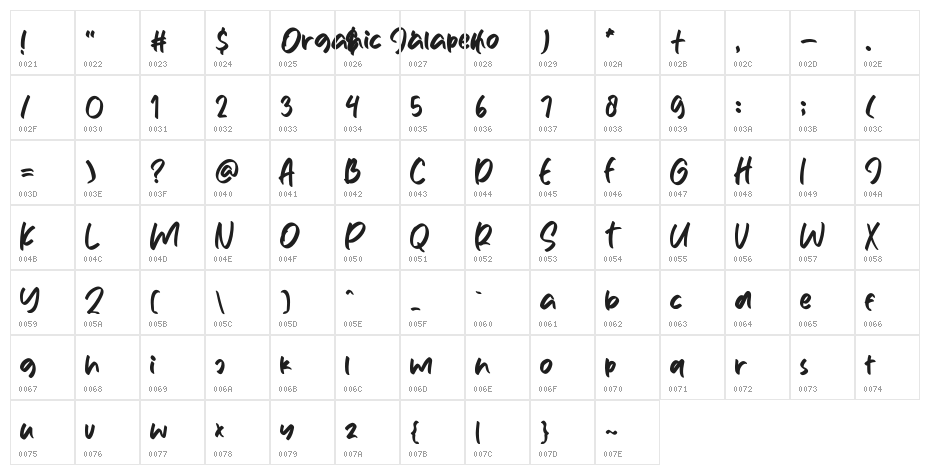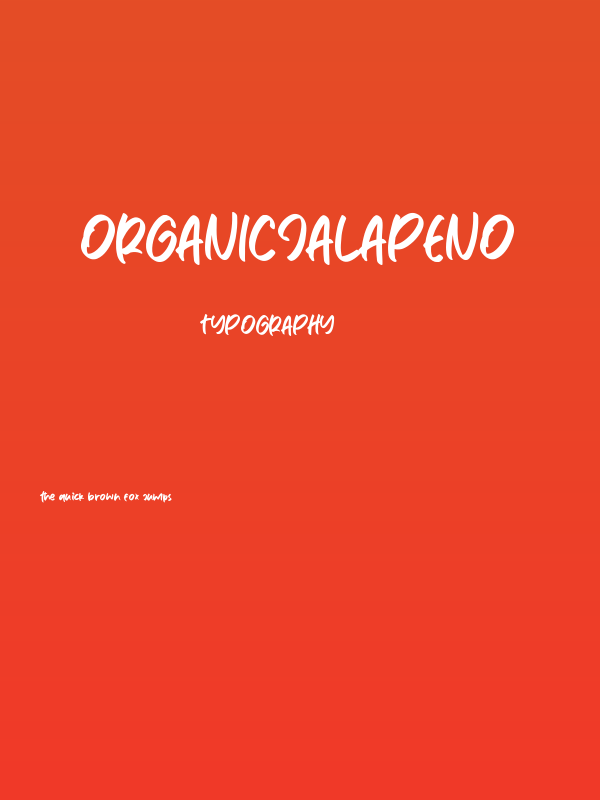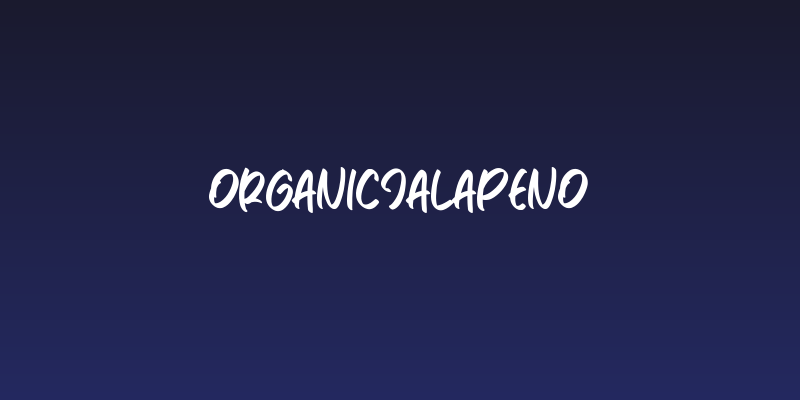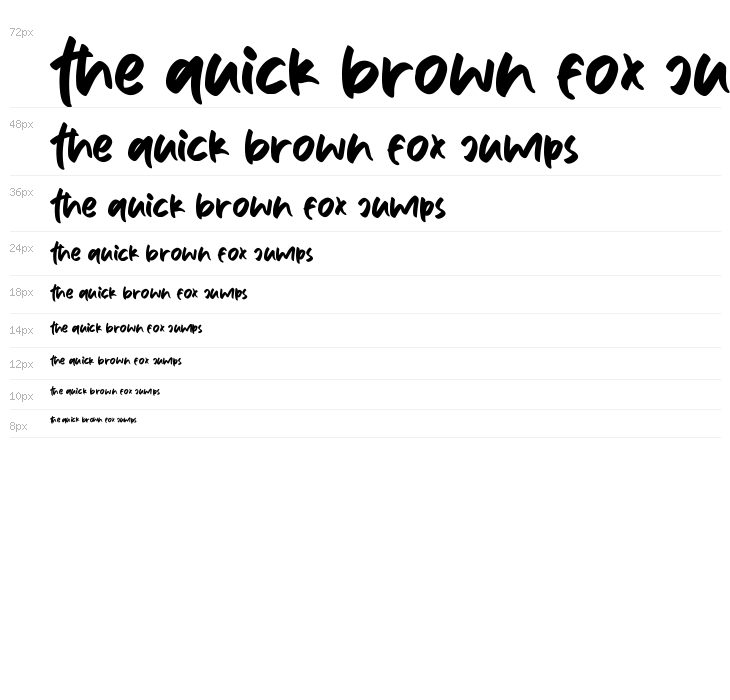
OrganicJalapeno Font
OrganicJalapeno Description
This font features a bold and expressive handwritten style, characterized by its fluid and dynamic strokes. The letters have a playful and organic feel, with varying thickness that adds a sense of movement and energy. The uppercase and lowercase letters maintain a consistent style, while the numerals and special characters complement the overall aesthetic. The font's informal and lively appearance makes it suitable for creative and artistic projects, where a personal touch is desired.
Proposed ProjectsIdeal for branding, packaging, social media graphics, and invitations where a personal and artistic touch is needed.